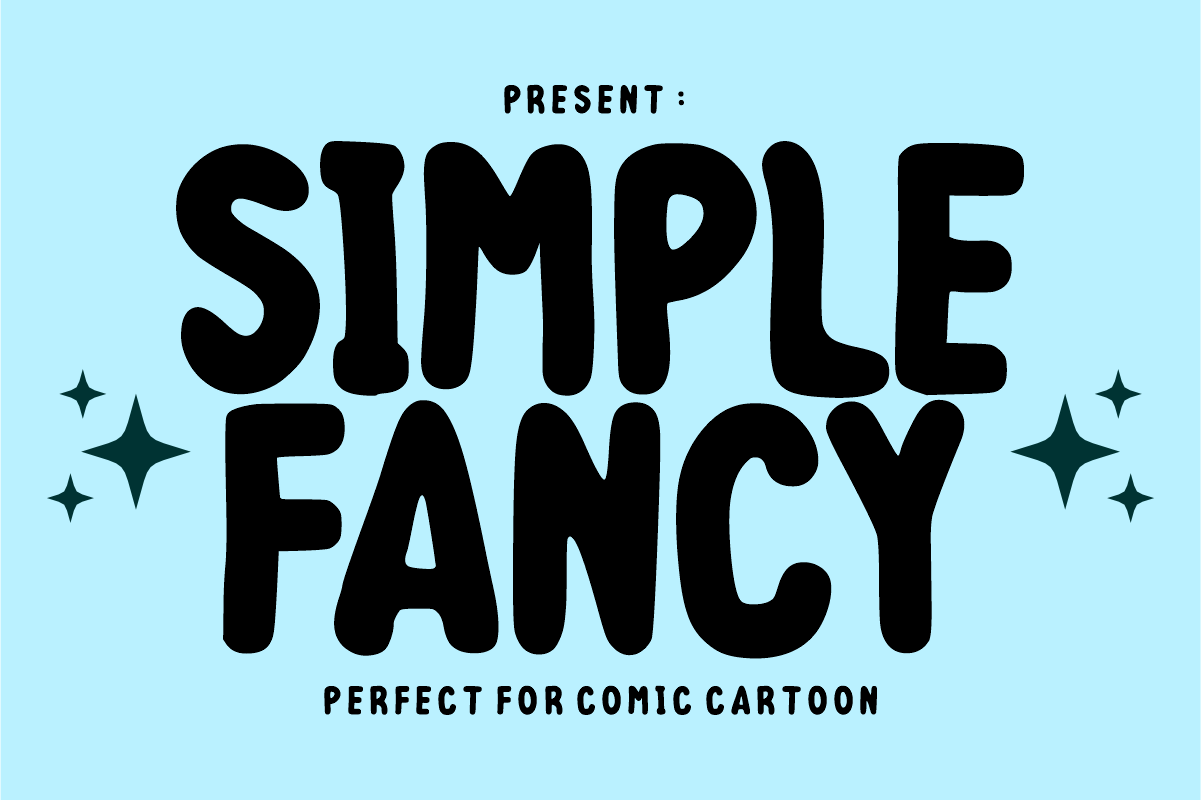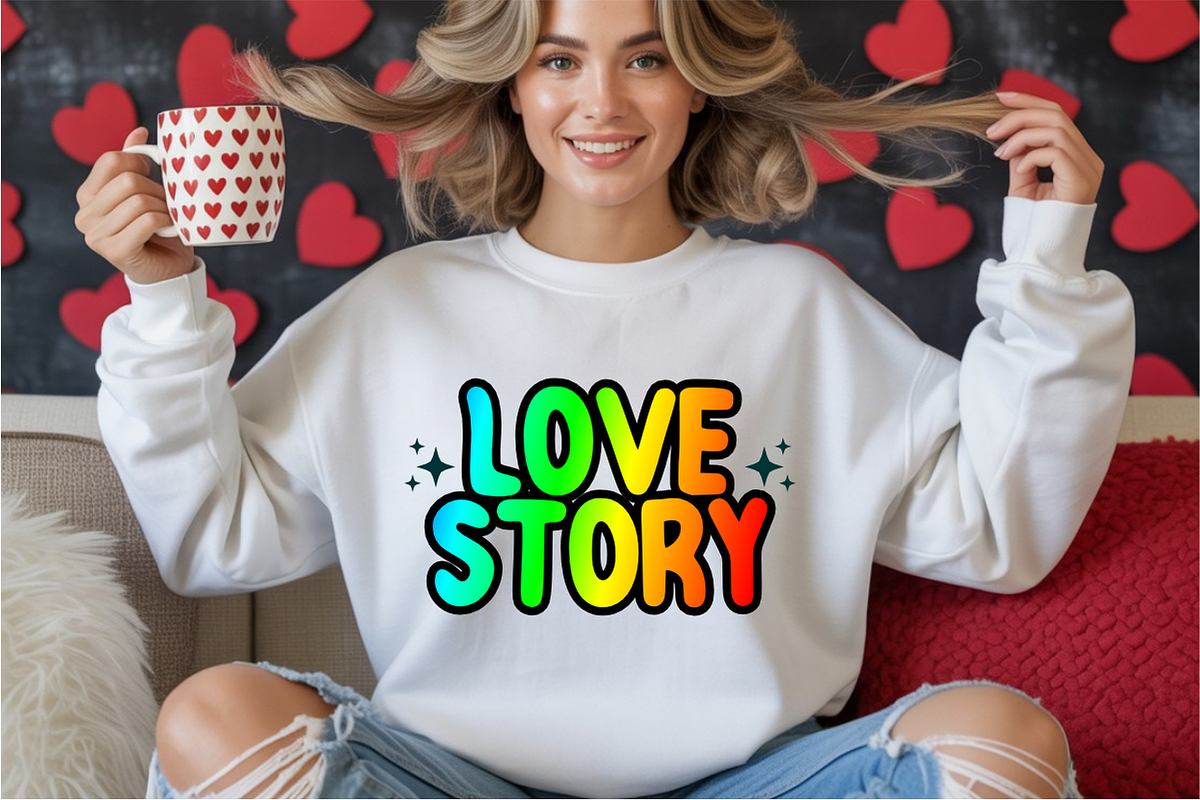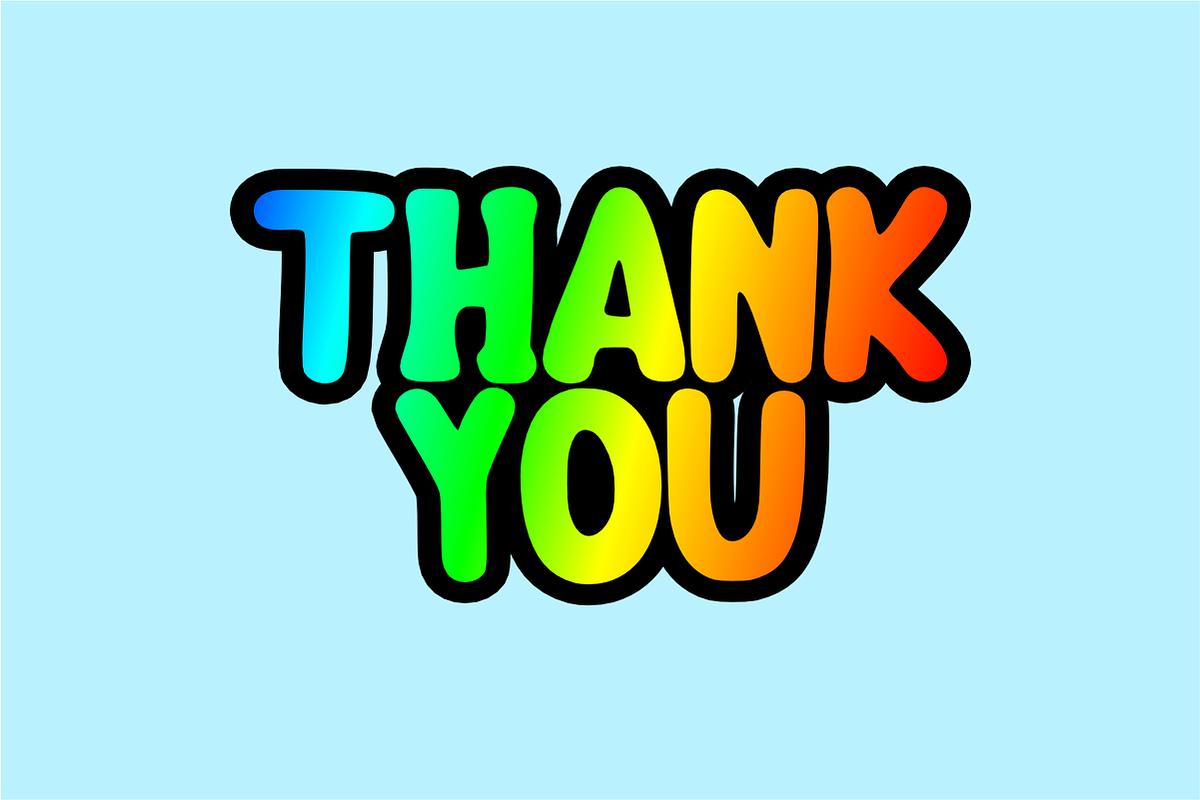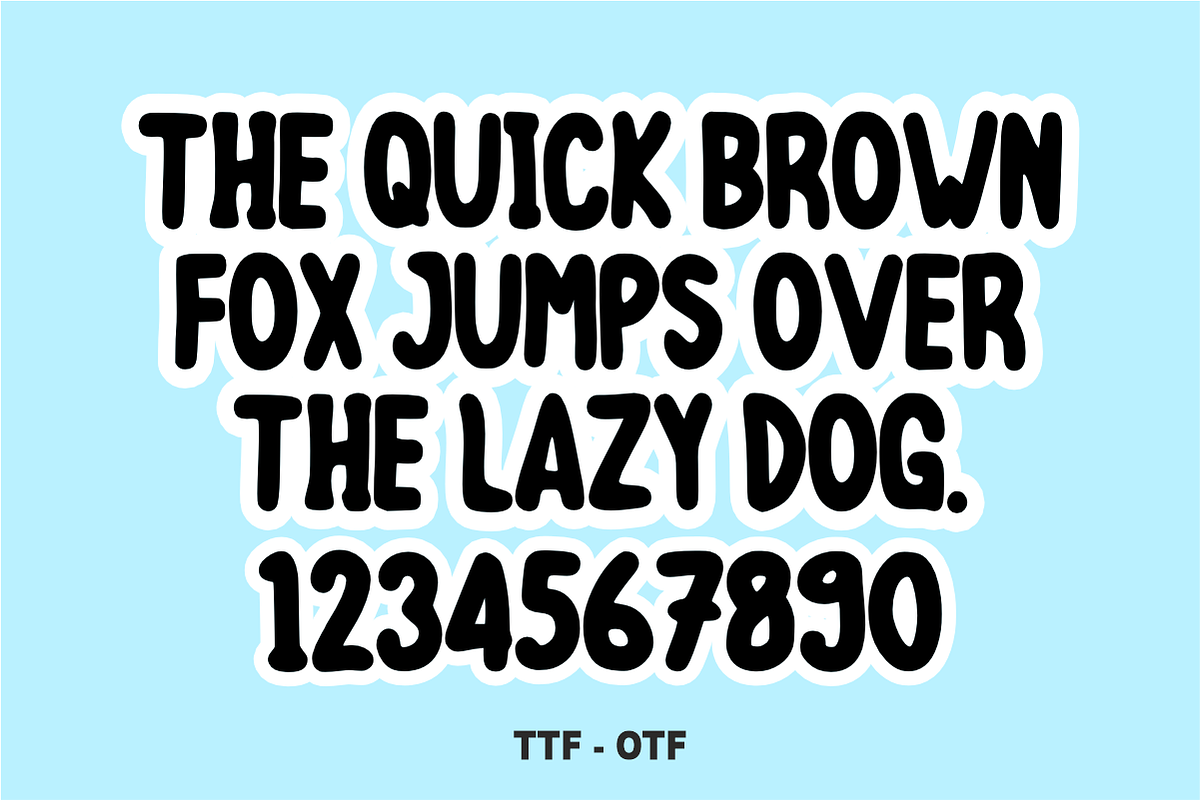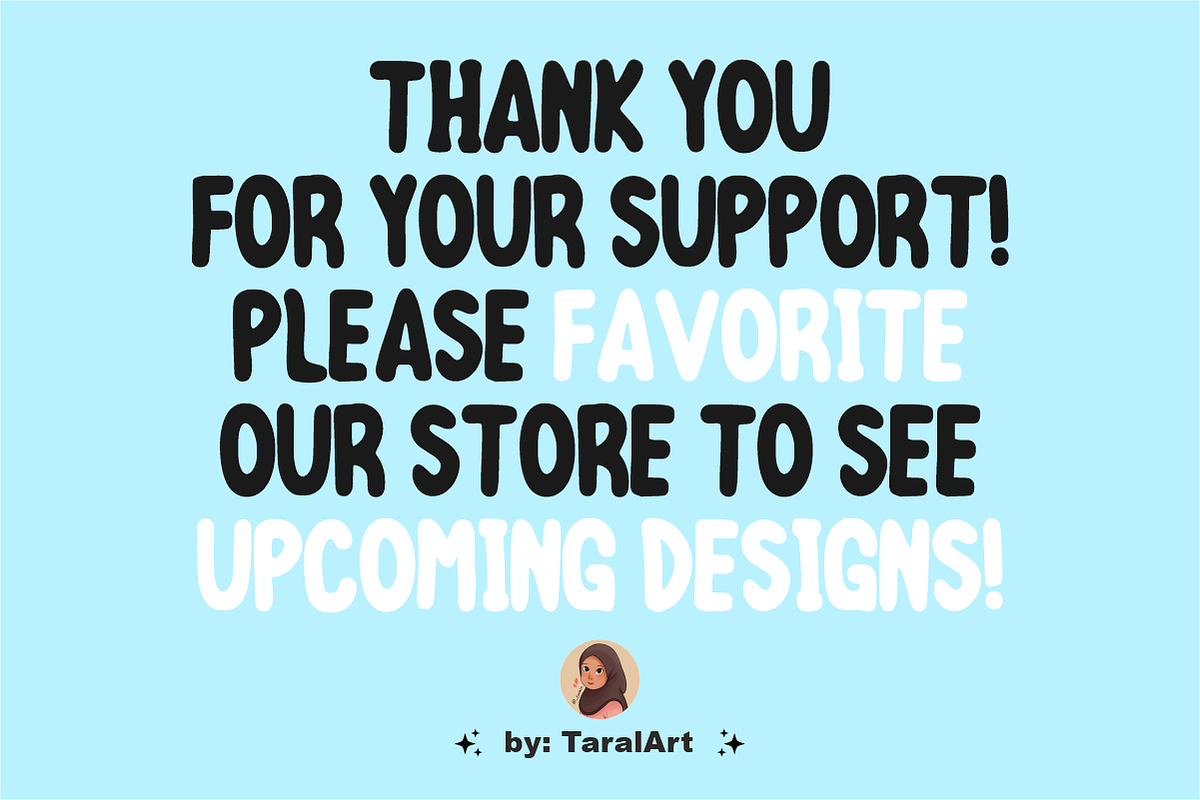
Simple Fancy - Playful Comic Font
Simple Fancy is a bold, rounded display font featuring a clean and playful comic cartoon style. With its friendly, hand-drawn letterforms and smooth lines, this versatile font adds an instant cheerful pop to any headline, custom sticker, or children's layout. Every character is cleanly vectorized to guarantee smooth, effortless weeding and cutting on Cricut and Silhouette machines.
Ideal For:
Cartoon headers, comic books, and playful graphic layouts
Custom die-cut stickers, labels, and planner overlays
Classroom decorations, school posters, and teacher resources
Kids' apparel, birthday party shirts, and custom merchandise
Fun business branding, casual packaging, and cheerful logos
Cricut, Silhouette, and DIY vinyl crafting projects